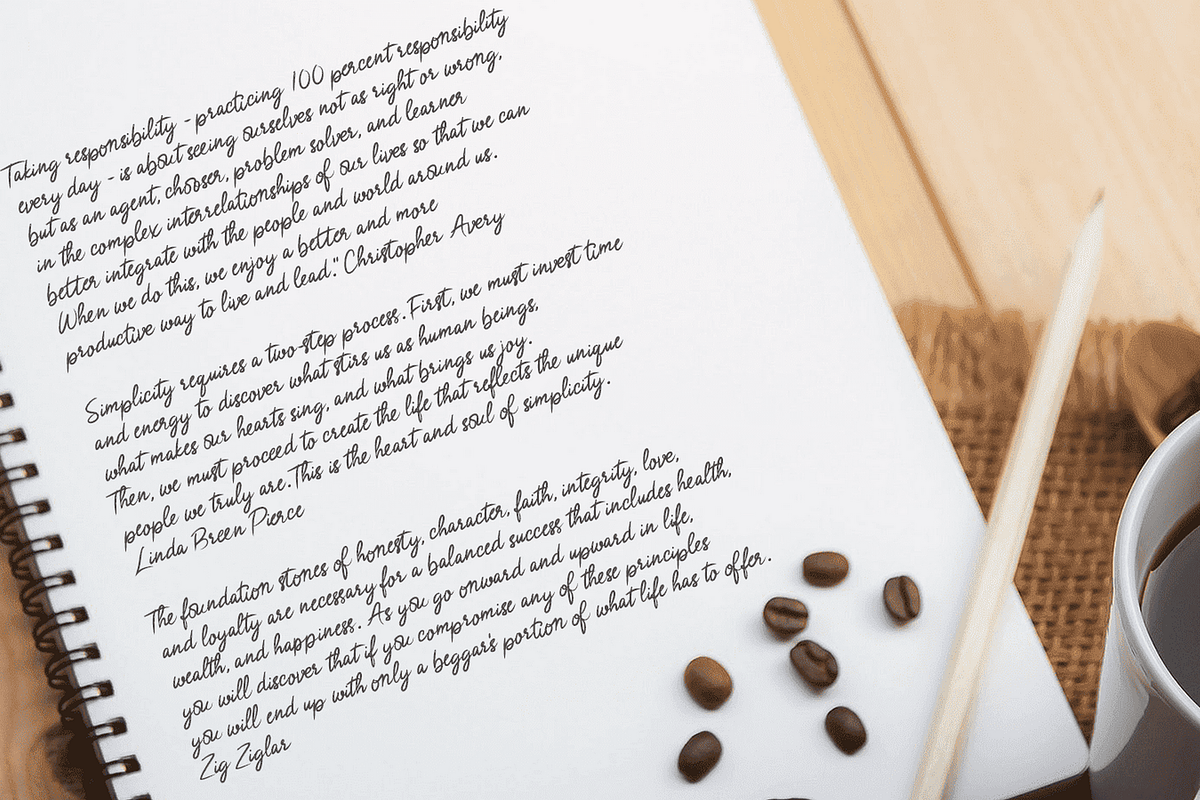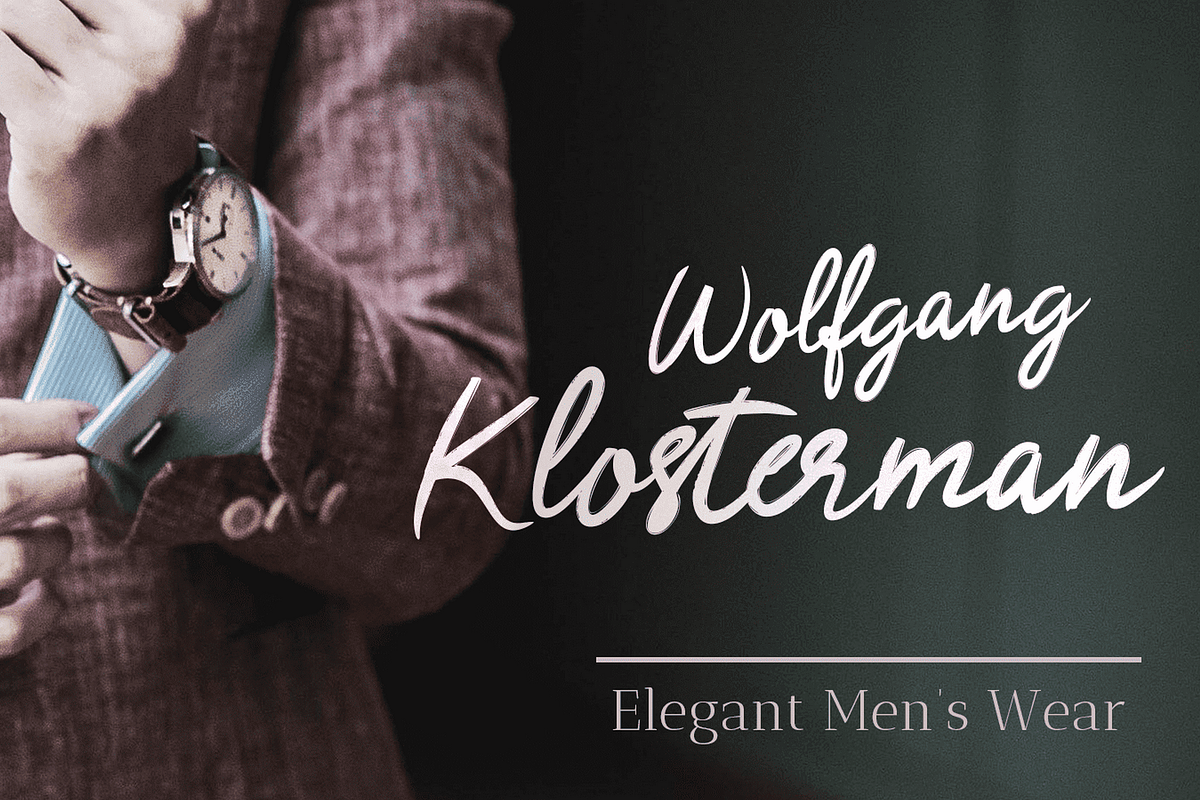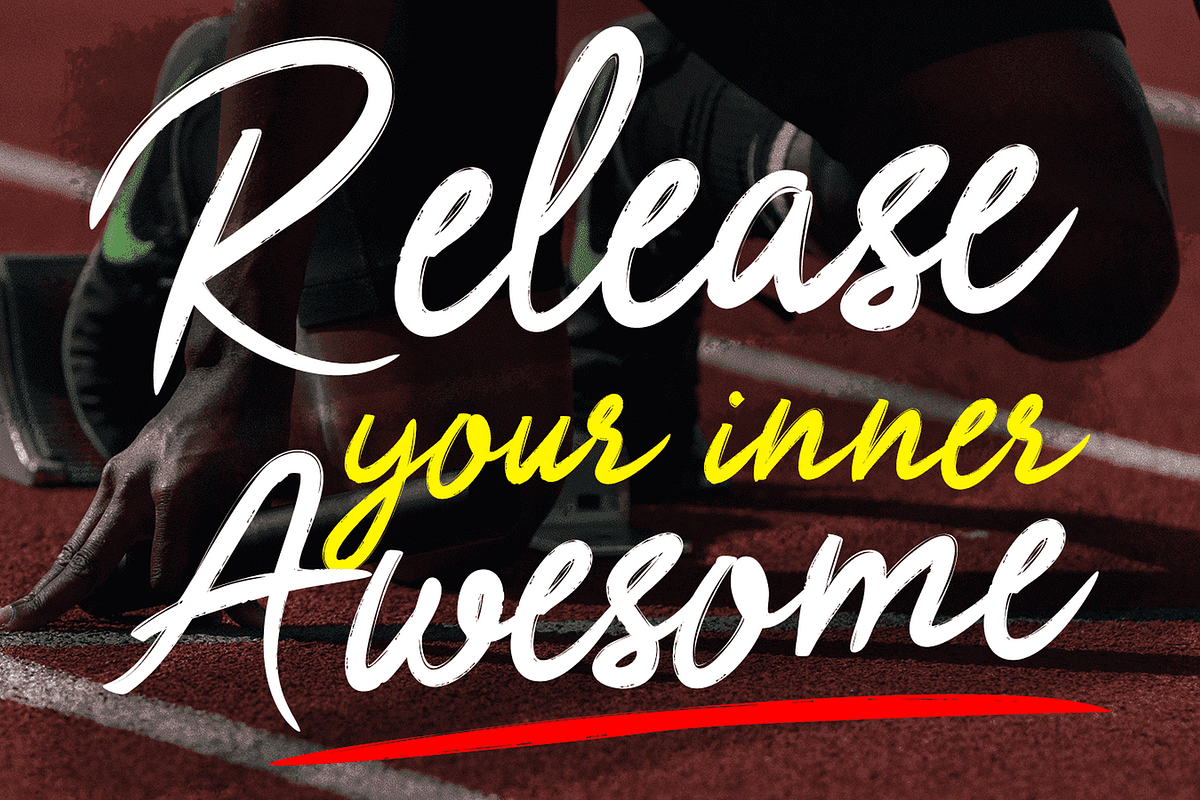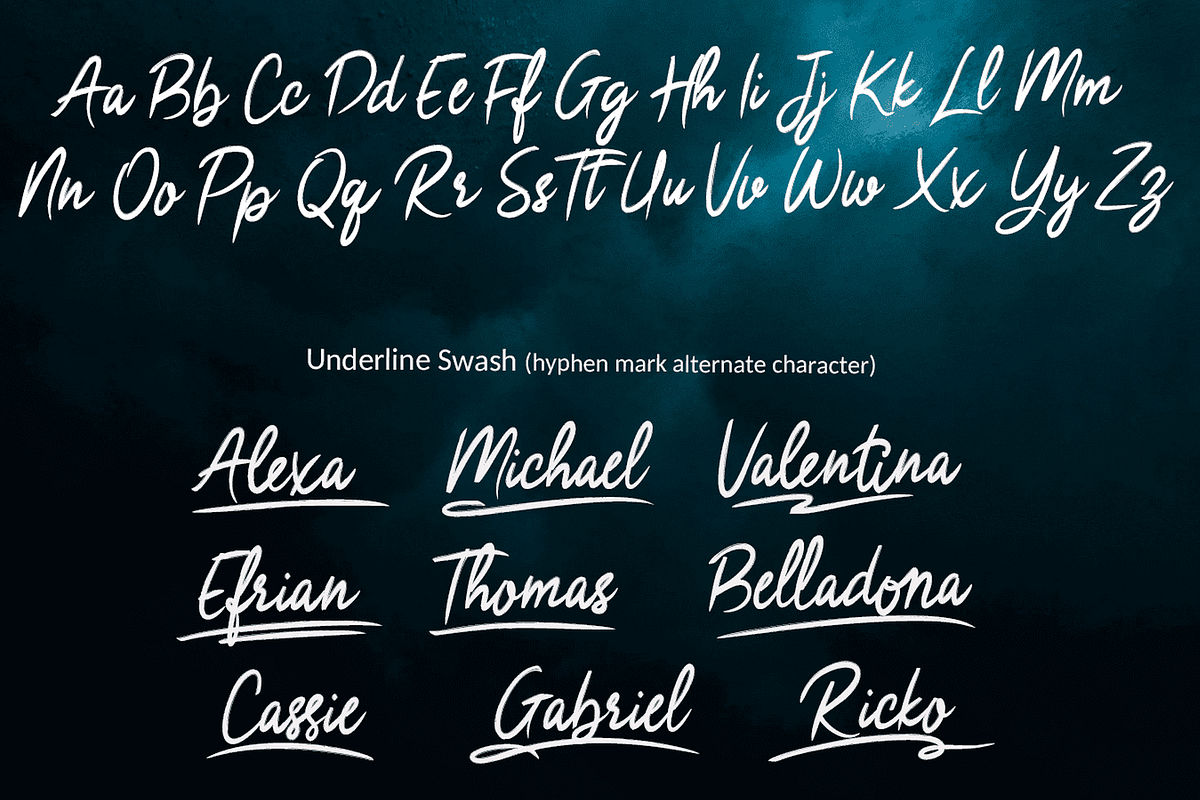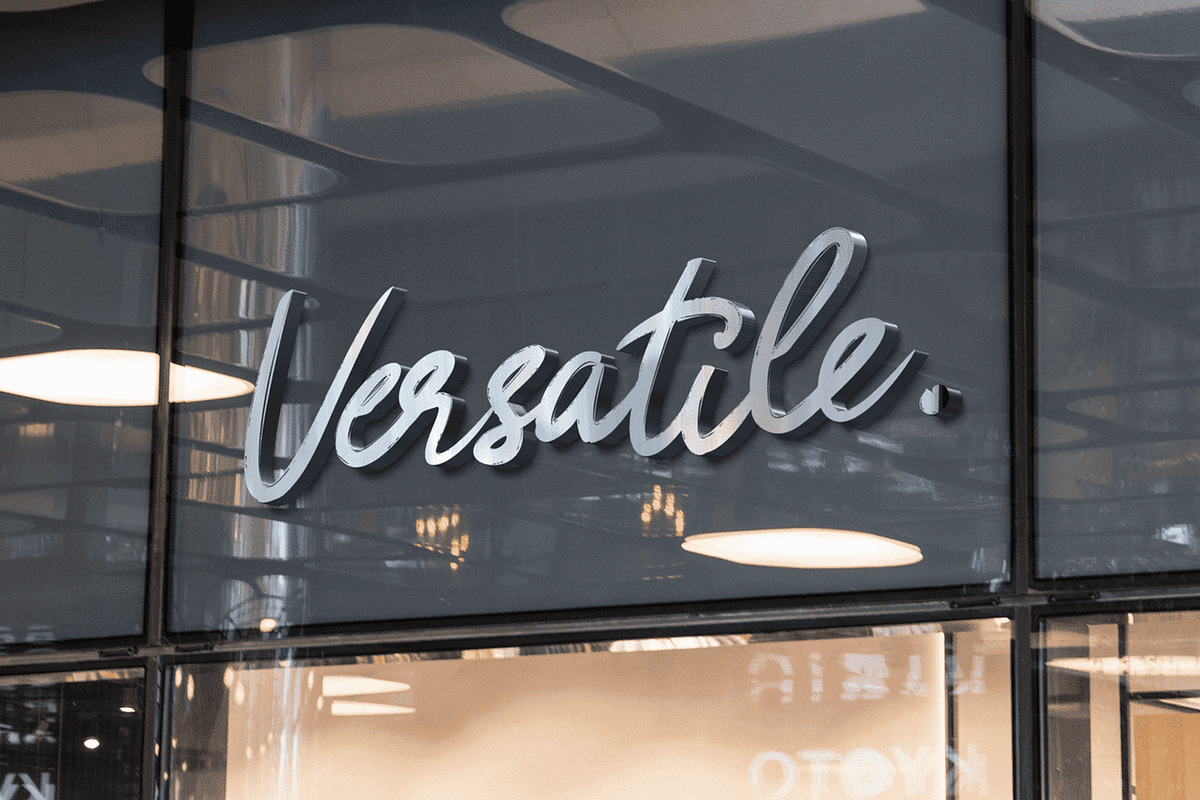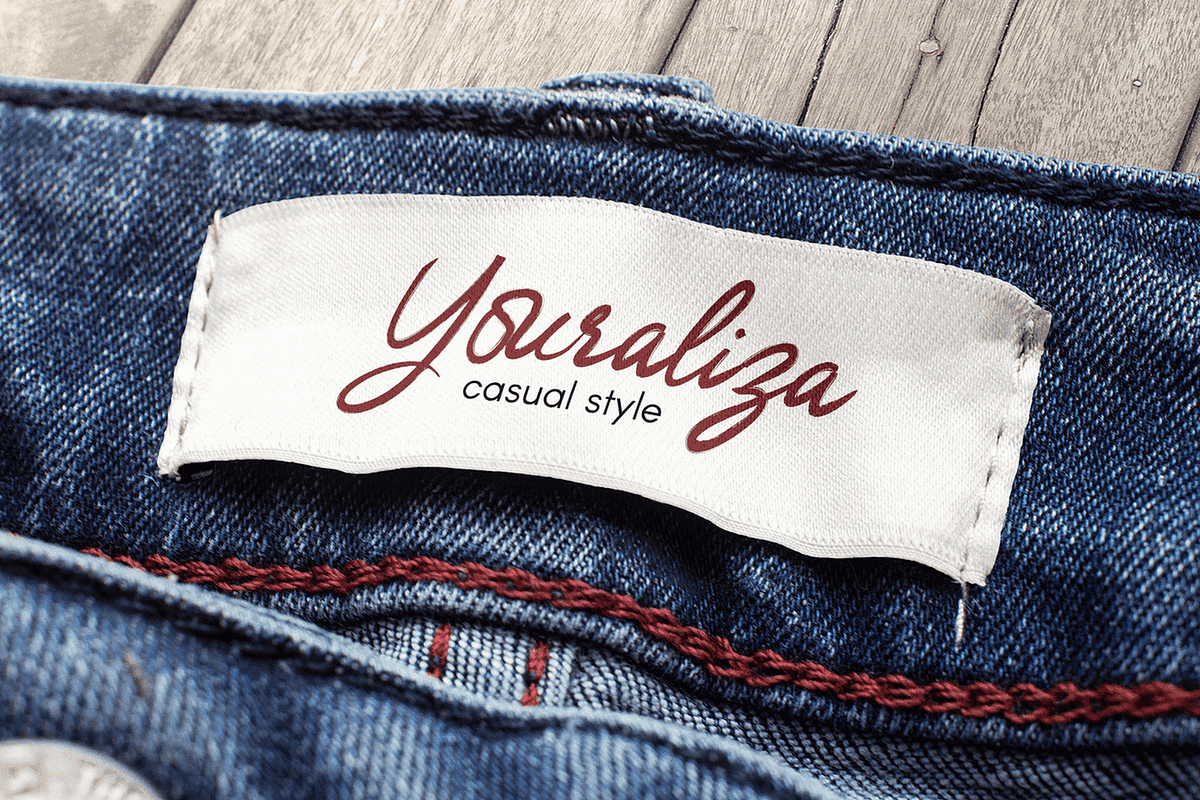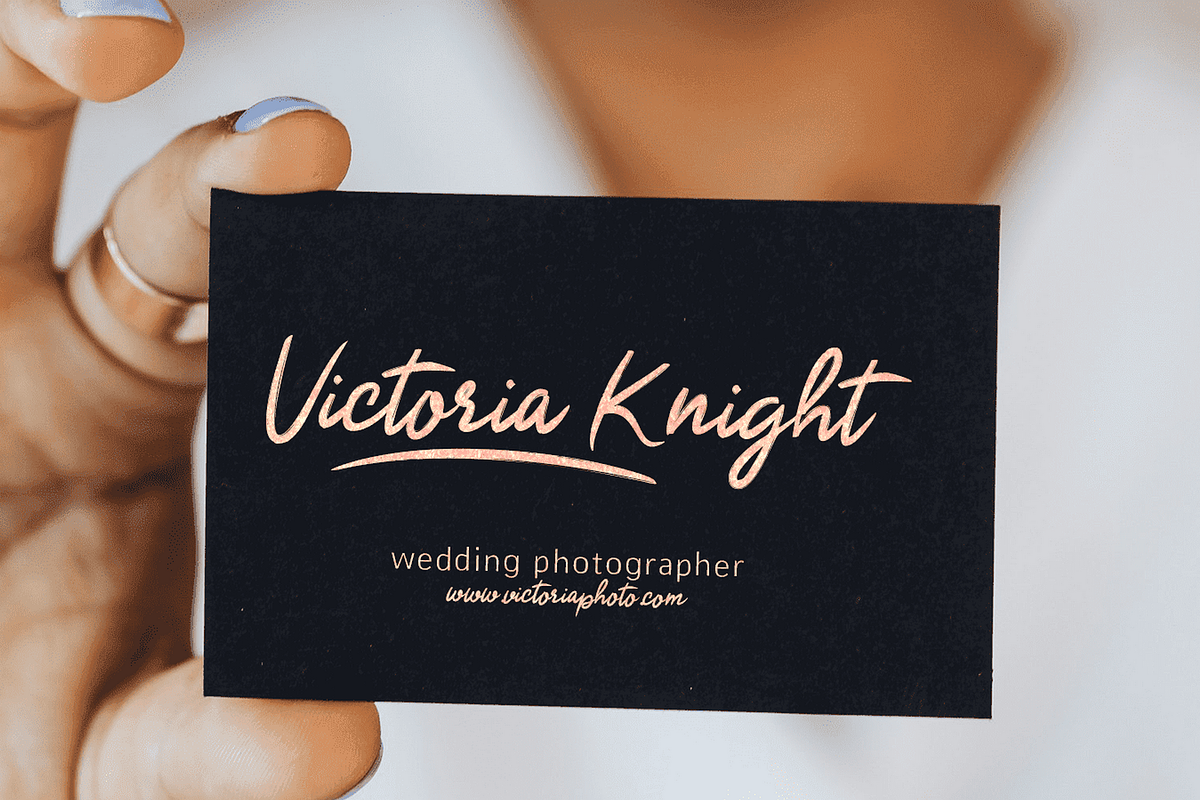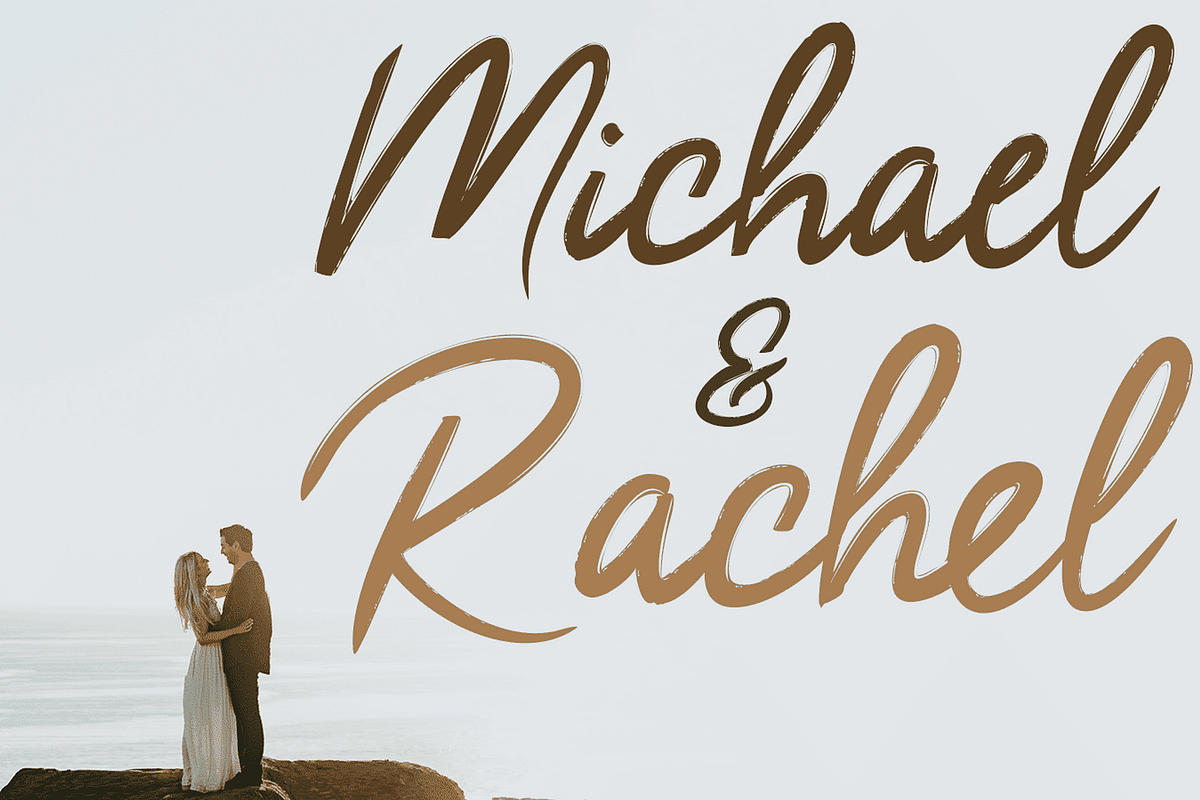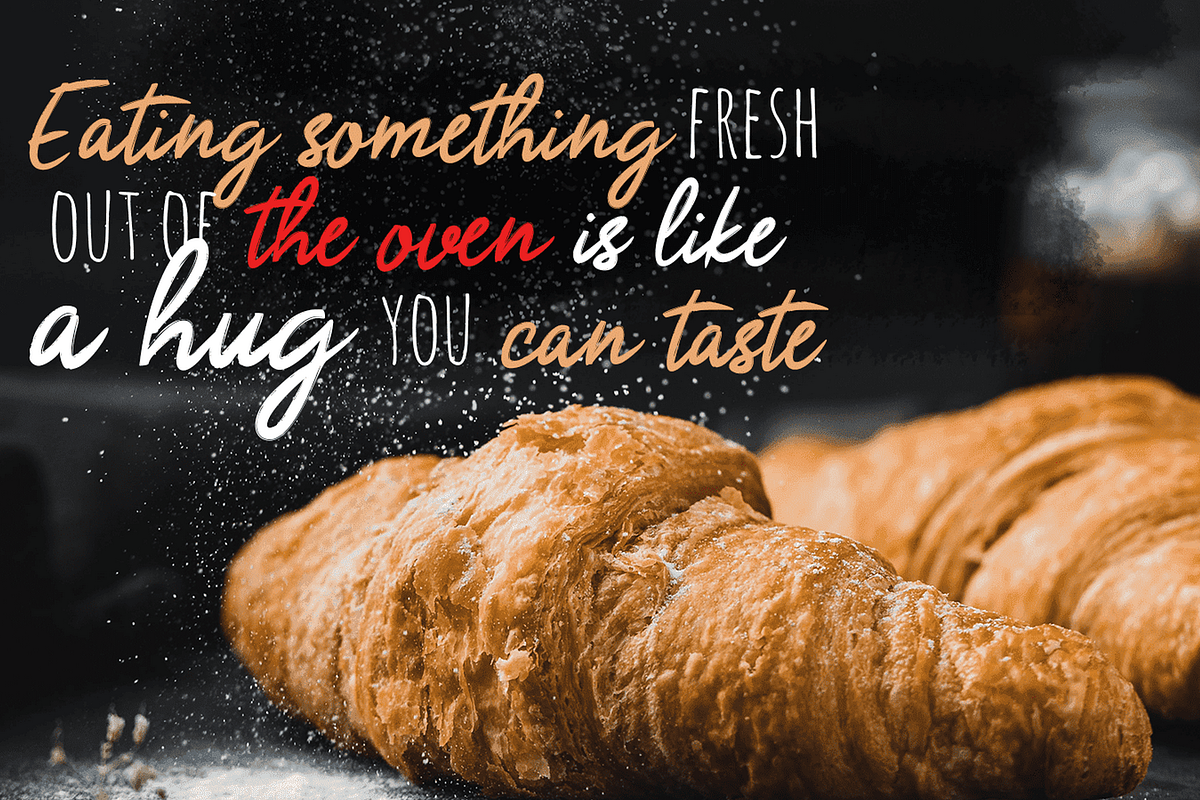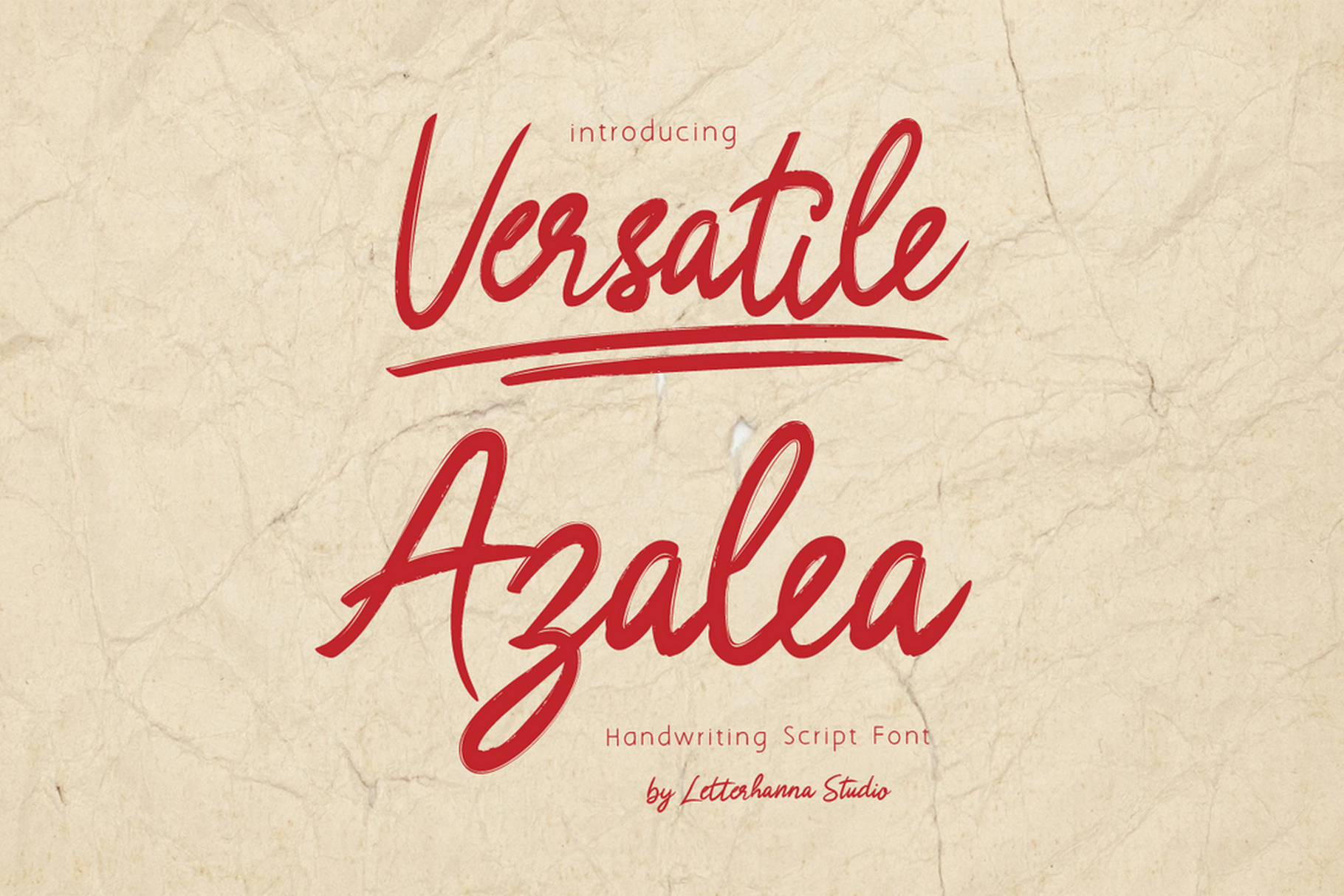
Versatile Azalea Brush Font
Versatile Azalea brush font is textured brush font using a contemporary approach to design, equipped with a lot of underline swashes. Versatile Azalea is suitable for a number of display or decorative designs. It will add a luxury spark to any design project that you wish to create! Fall in love with its incredibly versatile style and use it to create spectacular designs!
Underline swashes